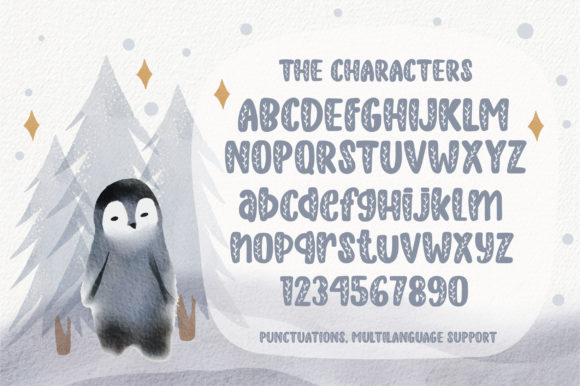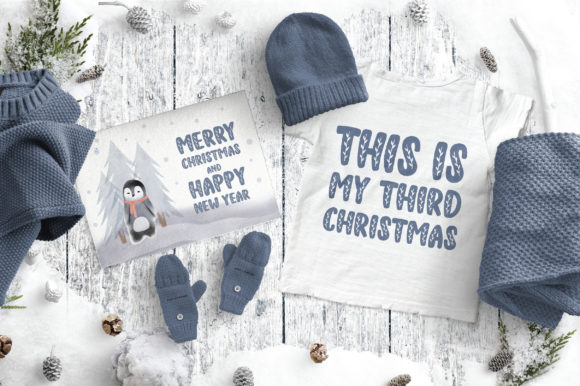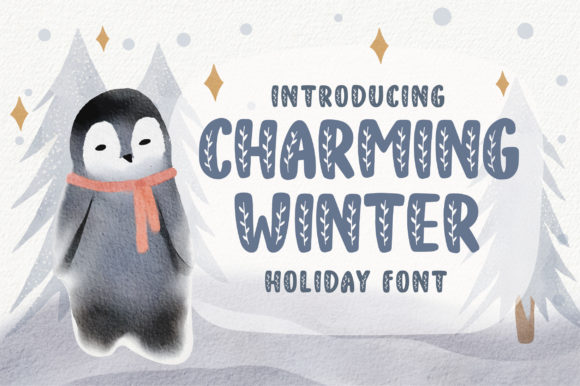
Discover the Magic of Charming Winter Font: Elevate Your Designs with this Cute and Friendly Display Font
As the winter season approaches, designers and crafters are on the lookout for fonts that can add a touch of magic to their creations. If you’re searching for a font that can bring a sense of warmth and friendliness to your designs, look no further than Charming Winter Font. This adorable display font is perfect for a wide range of projects, from holiday-themed designs to everyday creations that need a dash of personality.
What Makes Charming Winter Font So Special?
Charming Winter Font is a cute and friendly display font that is sure to capture the hearts of designers and crafters alike. Its unique charm lies in its ability to elevate any creation, regardless of the topic or theme. Whether you’re working on a festive holiday project or a more serious design, this font has the potential to add a touch of whimsy and personality that sets it apart from more traditional fonts.
Key Features of Charming Winter Font
- Cute and Friendly Design: Charming Winter Font is designed to be approachable and friendly, making it perfect for designs that need a personal touch.
- Versatile: This font can be used for a wide range of projects, from holiday-themed designs to everyday creations.
- Easy to Read: Despite its playful design, Charming Winter Font is easy to read, making it perfect for use in both digital and print designs.
- High-Quality: This font is designed to deliver high-quality results, with crisp and clear lines that look great in any size.
Uses for Charming Winter Font
So, what can you use Charming Winter Font for? The possibilities are endless! Here are a few ideas to get you started:
- Holiday Designs: Use Charming Winter Font to create festive holiday designs, such as Christmas cards, Halloween decorations, or Thanksgiving invitations.
- Branding and Packaging: Add a touch of personality to your brand with Charming Winter Font, perfect for use in packaging, labels, and business cards.
- Digital Designs: Use this font in digital designs, such as social media graphics, blog posts, and website headers.
- Crafting Projects: Charming Winter Font is perfect for use in crafting projects, such as scrapbooking, DIY decorations, and handmade cards.
Tips for Using Charming Winter Font
To get the most out of Charming Winter Font, here are a few tips to keep in mind:
- Use it Sparingly: While Charming Winter Font is cute and friendly, it can be overwhelming if used too much. Use it sparingly to add a touch of personality to your designs.
- Pair it with Other Fonts: Experiment with pairing Charming Winter Font with other fonts to create a unique and interesting design.
Charming Winter Font is a versatile and adorable display font that is sure to elevate your designs. With its cute and friendly design, this font is perfect for a wide range of projects, from holiday-themed designs to everyday creations. Whether you’re a designer, crafter, or DIY enthusiast, Charming Winter Font is a must-have addition to your font library. So why wait? Download Charming Winter Font today and start adding a touch of magic to your designs!